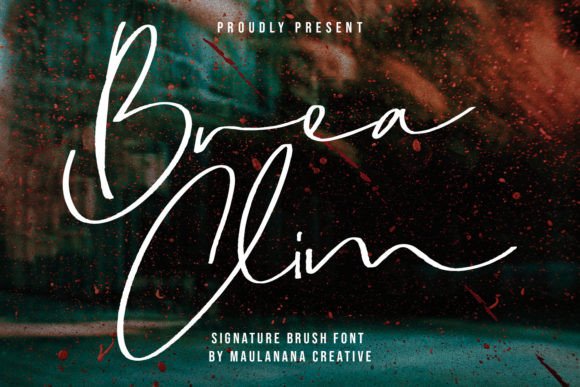
Behold, Brea Clim - the font that will awaken your creativity and transform your designs into works of art! Immerse yourself in the enchanting world of script fonts, where elegance and charm collide. Brea Clim is not just a font; it's an experience that will leave you breathless.
With Brea Clim, you possess the power to breathe life into your chalkboard art. Its smooth, flowing strokes and playful curves will captivate your audience, inviting them to embark on a visual journey like no other. Whether you're creating logos, social media posts, movie and book titles, invitations, cards, flyers, or web designs, Brea Clim will elevate your work to new heights.
Imagine the awe-inspiring chalkboard art that you can create with Brea Clim. Its graceful lines and delicate flourishes will transform ordinary words into captivating works of art. Picture your designs adorned with Brea Clim's timeless beauty, drawing the eye and sparking conversations.
Brea Clim is more than just a font; it's a storyteller. Let its enchanting characters carry your message with grace and charm. Its versatility knows no bounds, adapting effortlessly to a myriad of design styles. Brea Clim is the perfect companion for projects that demand a touch of sophistication and elegance.
Join the creative revolution and embrace Brea Clim. Unleash your imagination, let your creativity soar, and witness the transformation that Brea Clim brings to your designs. It's time to leave a lasting impression and captivate your audience with the magic of Brea Clim.